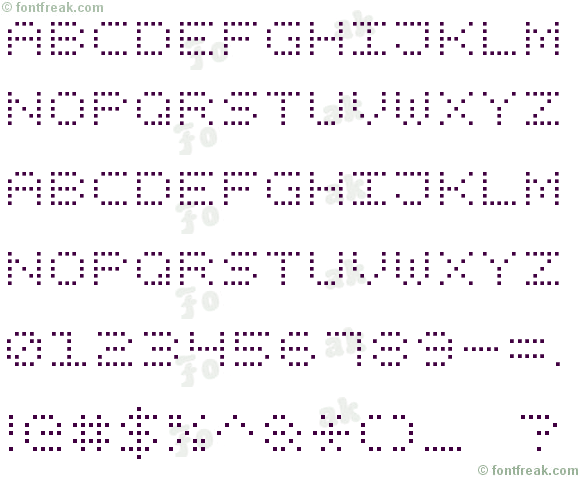
Square Dot Digital-7
Square Dot Digital-7 by Style-7 is a unique display font that falls within the decorative category, characterized by its distinct square dot structure. The font features a pixelated design, where each character is composed of square-shaped dots, creating a digital feel that evokes a sense of technology and modernity. The stroke weight is consistent throughout, offering a balanced visual appeal, while the spacing between characters is thoughtfully designed to enhance readability without losing the playful essence of its style.
This font is particularly well-suited for a variety of creative applications. It can be effectively used in digital media, such as website headers or app interfaces, where a modern aesthetic is desired. Additionally, Square Dot Digital-7 works wonderfully for promotional materials, including flyers and posters, especially for tech-related events or gaming conventions. Its playful nature also makes it a great choice for children's products, educational materials, or even retro-themed party invitations.
Targeted towards graphic designers, small business owners, and content creators, this font provides an engaging option for those looking to infuse a contemporary digital vibe into their projects. The versatility of Square Dot Digital-7 allows it to cater to a diverse audience, making it an excellent choice for anyone aiming to make a statement.
In conclusion, the Square Dot Digital-7 font free download stands out due to its unique square dot design and modern aesthetic. Whether you’re designing for a tech startup or creating fun, engaging visuals for a younger audience, this font offers a distinctive look that captures attention while remaining functional. Its distinctive visual characteristics and playful nature make it an exceptional addition to any designer's toolkit.